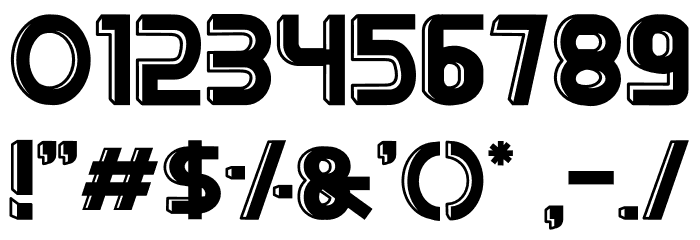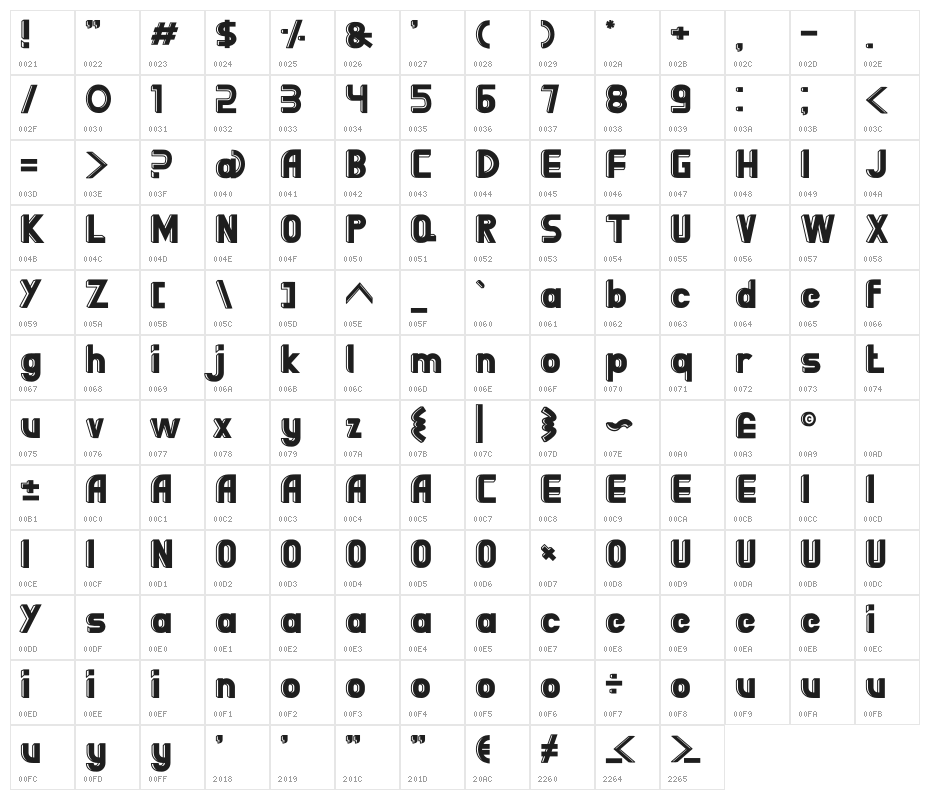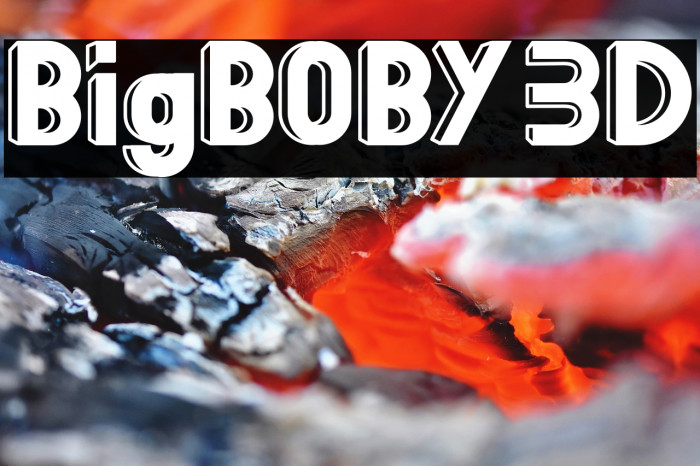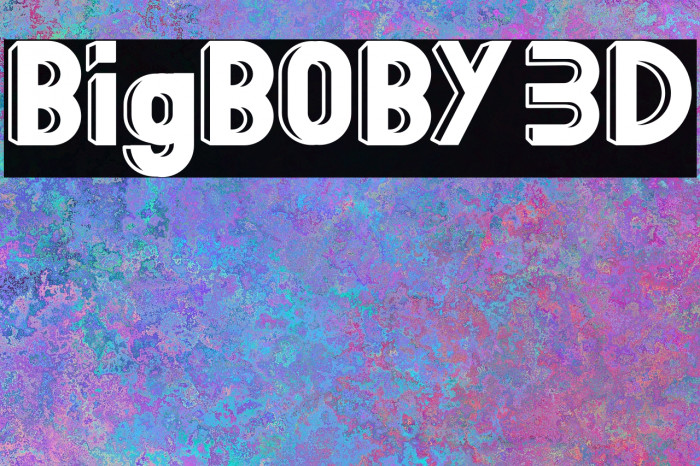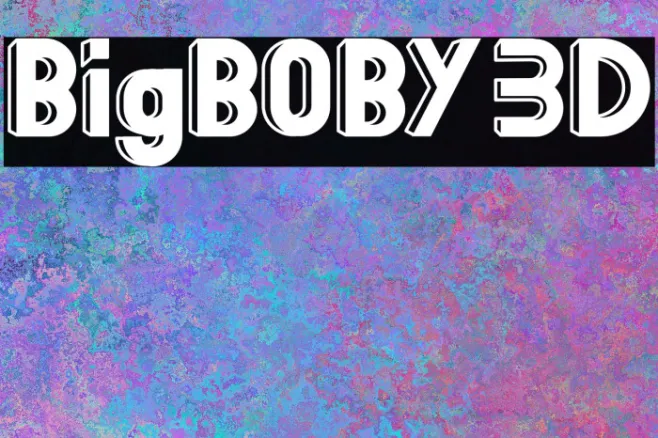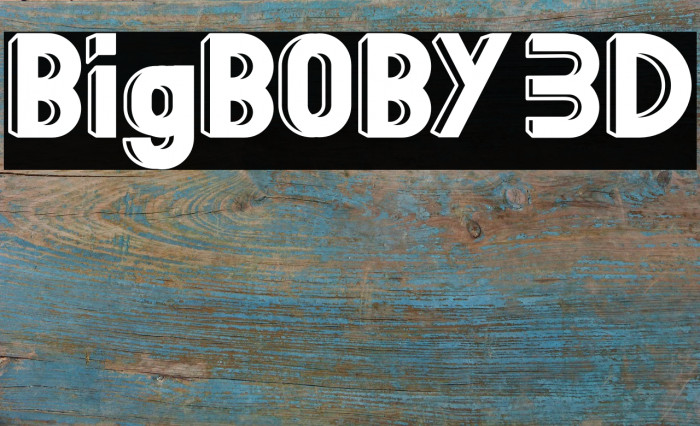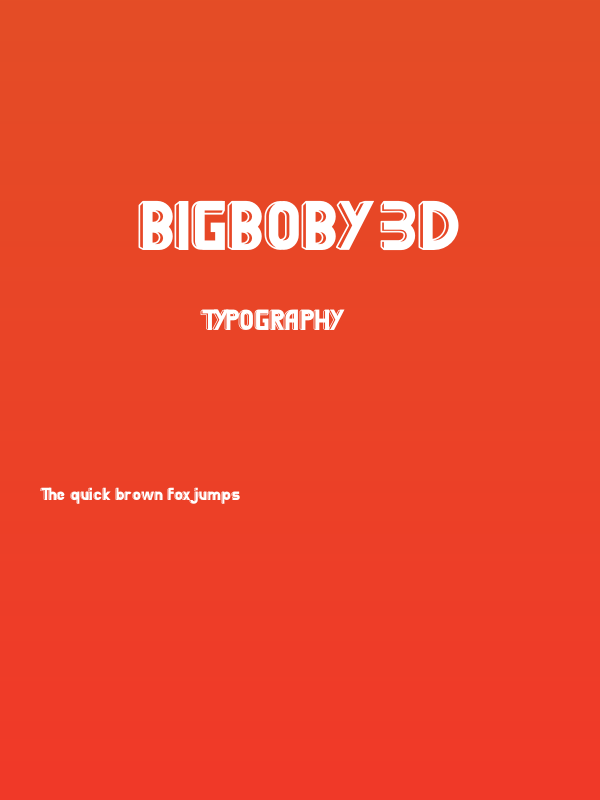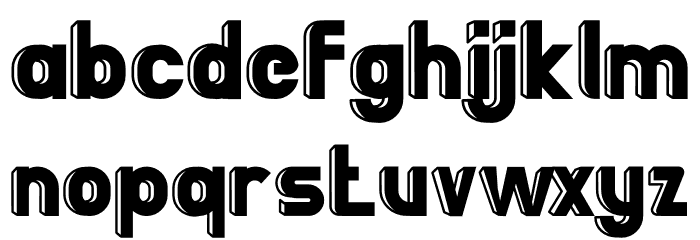
BigBOBY 3D Font
BigBOBY 3D Description
This bold and dynamic font features a three-dimensional effect that gives each character a sense of depth and volume. The uppercase and lowercase letters are designed with a consistent thickness, creating a strong visual impact. The numbers and special characters maintain the same stylistic approach, ensuring uniformity across all elements. The font's geometric shapes and clean lines make it suitable for modern and contemporary designs. Its unique 3D appearance is achieved through a clever use of shading and perspective, which adds a playful yet sophisticated touch to any project. The font is versatile, allowing it to be used in various creative applications, from digital media to print.
| Proposed Projects | Ideal for posters, logos, headlines, and any design requiring a bold, eye-catching typeface. |